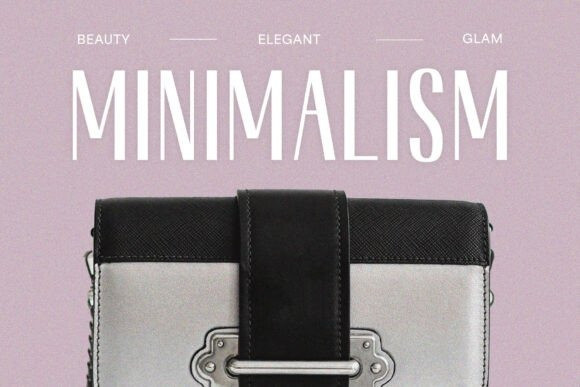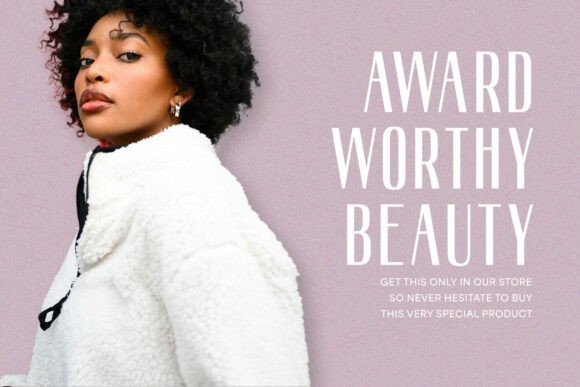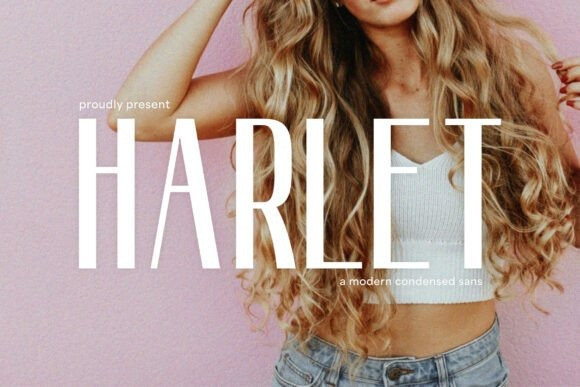
Harlet Font
Harlet Font, a sleek and modern condensed sans-serif typeface. With its clean and minimalistic design, Harlet exudes elegance and sophistication, making it perfect for fashion branding, editorial designs, social media graphics, and minimalist layouts. Its tall, narrow proportions create a striking visual appeal, ideal for creating impactful titles and refined logo designs.